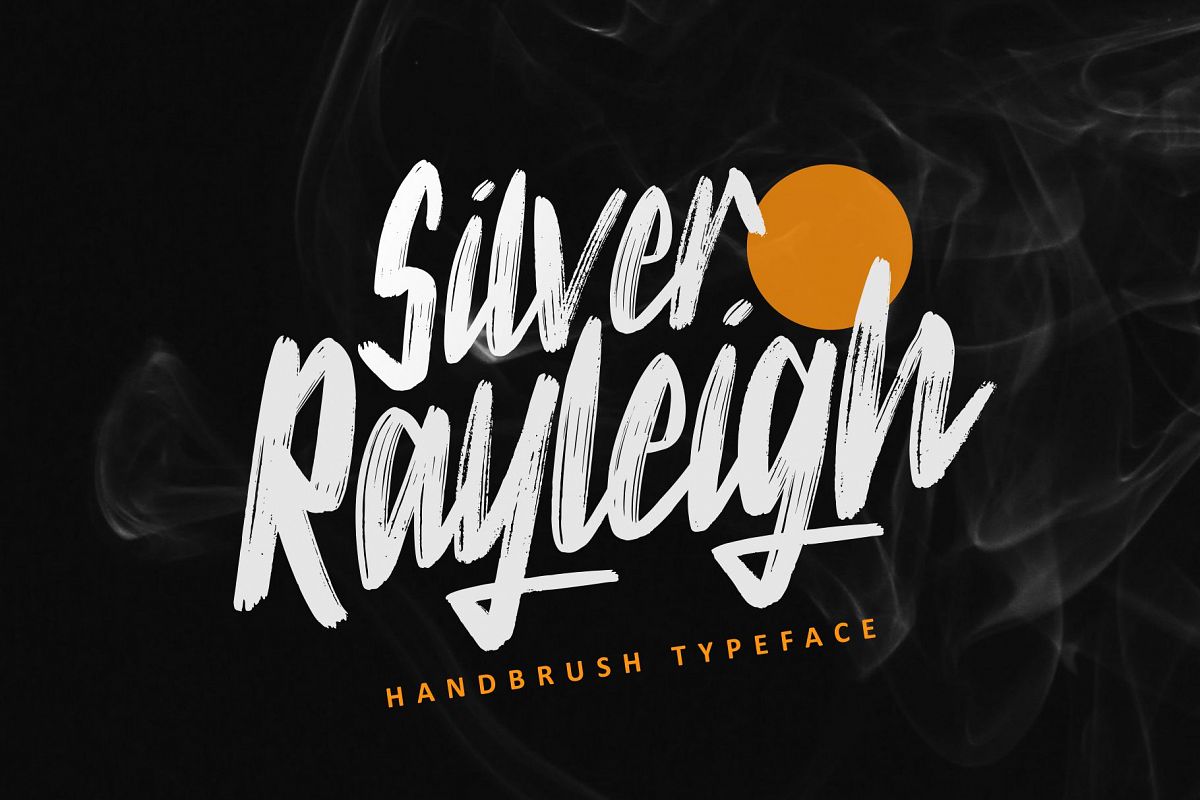
Silver Rayleigh - HandBrush Typeface
Silver Rayleigh
Silver Rayleigh is a realistic hand brushed font, with natural authentic brush. With extra attention to quick strokes and sharp details, Silver Rayleigh is ideal for Branding Projects, Logo Design, Quotes, product packaging - or simply as a stylish text overlay to any background image, or anything which needs a typographic turbo-boost.